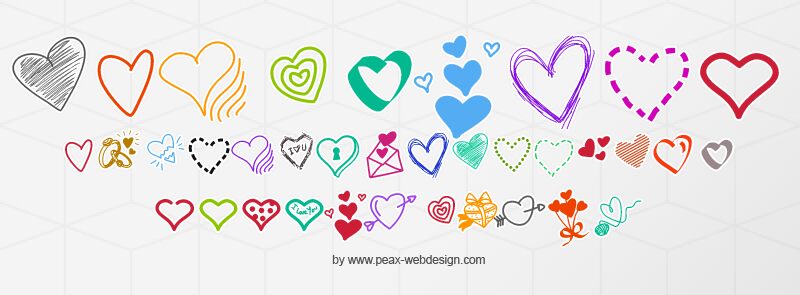
PW Little Hearts by Peax Webdesign is a free heart-themed pictorial font with a lively hand-drawn finish. Its symbols move through affectionate, wounded, and comic variations, including pierced, locked, broken, stitched, shaded, and smiling hearts. Loose contours and uneven hatching make the set resemble quick ink illustrations rather than uniform polished digital icons.
Gift shops and greeting card brands can use these pictures across packaging, seasonal promotions, and social graphics. They turn small labels into decorative emblems. The mix of romance, heartbreak, repair, and humor also suits Valentine's events and youth-oriented stationery, especially when the artwork calls for an expressive comic-book touch.